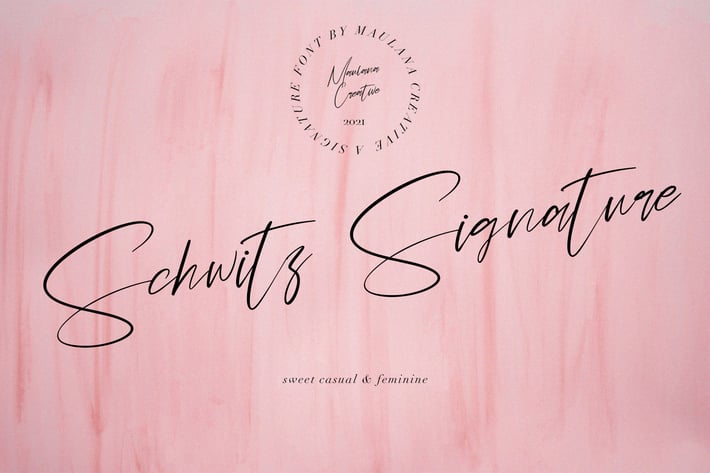
Schwitz Signature Sweet Casual Script Font
Give your designs an authentic handcrafted feel. Schwitz Signature Sweet Casual Script Font is perfectly suited to logo, stationery, branding, typography quotes, magazine or book cover, website header, clothing, branding, packaging design, restaurant and more.